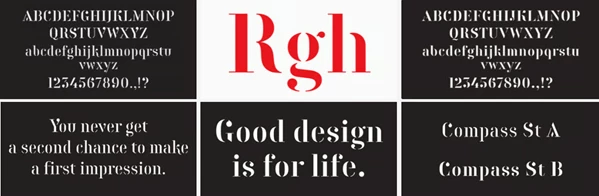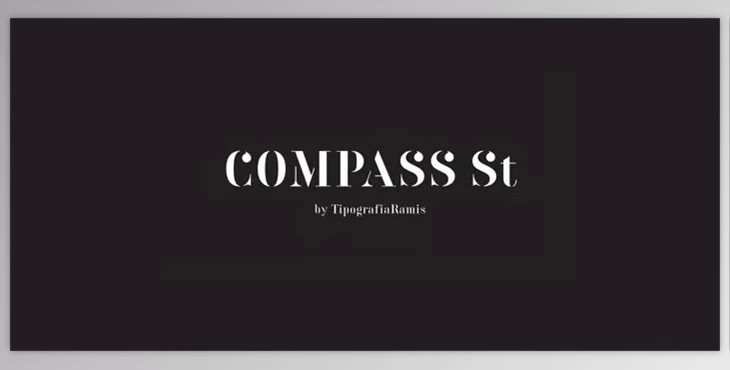
The Compass St Font Family is an exciting addition to an already established collection of Compass TRF Stencil fonts originally released in 2010. This release contains two fonts with a specific decorative distinction and can be used for whatever need arises, as they are released in the OpenType format for seamless connection and use.
The Compass St Font Family supports most Latin languages, which makes it a more compatible option for international works. Furthermore, its two styles boast versatility for any print or online venture, and since it is a general update for the pre-existing Compass TRF Stencil font lineup, it brings a new dynamic to the field since it expanded what was once released years ago, yet not all that recently.